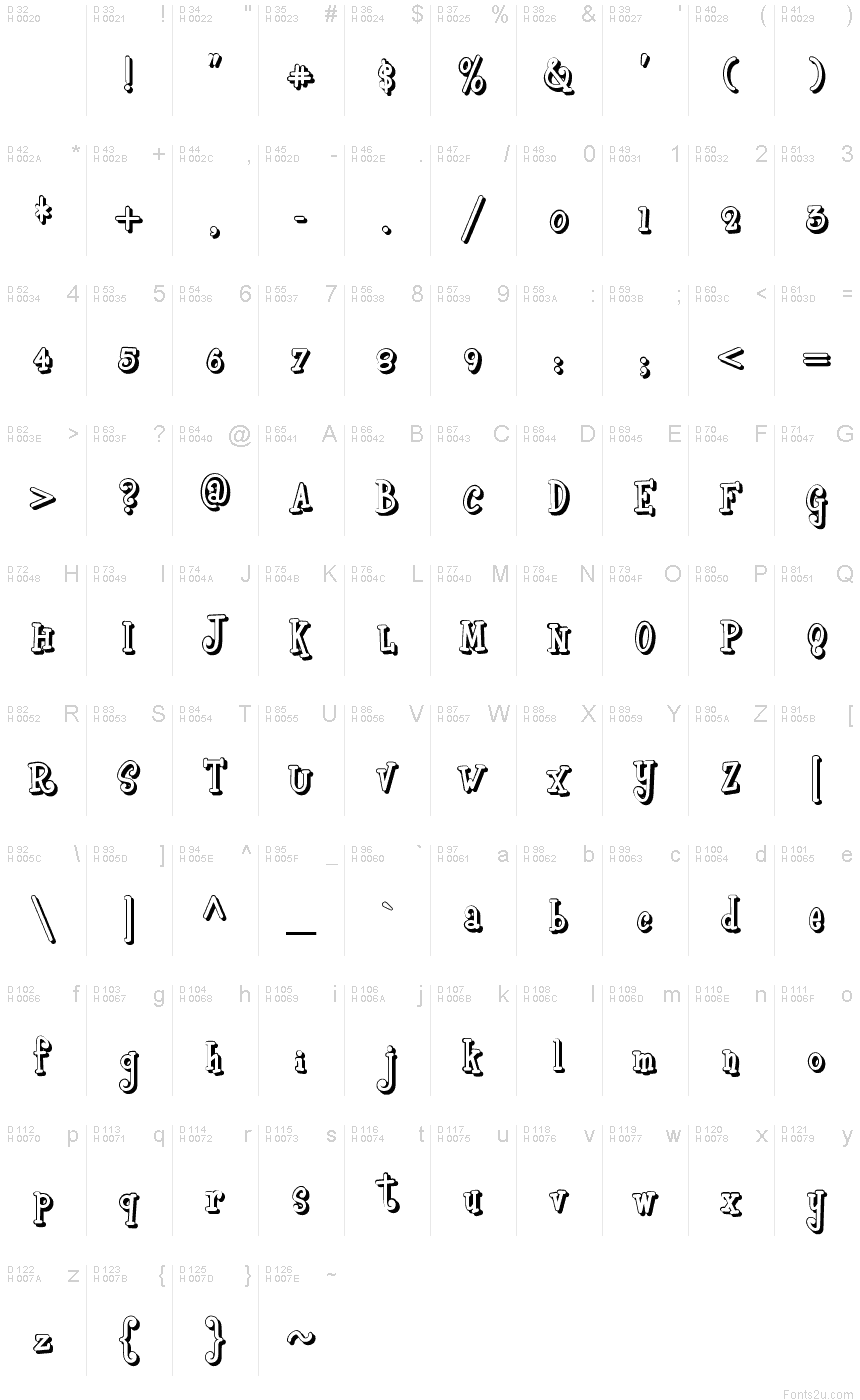
Boyz R Gross Shadow by Nick Curtis is a free retro cartoon lettering font with chunky, hand-drawn curves and a big comic-book shadow. The letters feel bouncy and slightly unruly, with rounded shapes, thick outlines, and that oversized offset shadow giving the whole font a loud 1960s novelty mood.
It fits posters, kids' book covers, cereal-style packaging, playful band flyers, and title cards where a free font needs instant throwback energy. Use it for short headlines, logo sketches, or big pull quotes when you want the shadow to do part of the talking and keep the words feeling loose rather than strict.